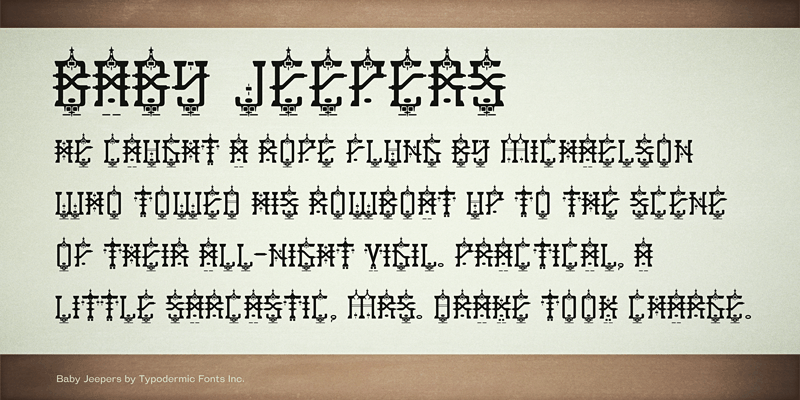
Baby Jeepers is a modular, ornamental small caps headliner inspired by lettering on ancient Martian temples. This font includes a license that allows free commercial use: sometimes referred to as a desktop license. This allows you to install the font on a computer and use it to create posters, web graphics, game graphics, t-shirts, videos, signs, logos and more. Read the license agreement for details. If you'd like to embed this font in an app, ebook, on the web or anything that's not covered by the desktop license agreement, visit the link below. You'll find distributors who offer different types of licenses or you can contact me for help. http://typodermicfonts.com/baby-jeepers/ |